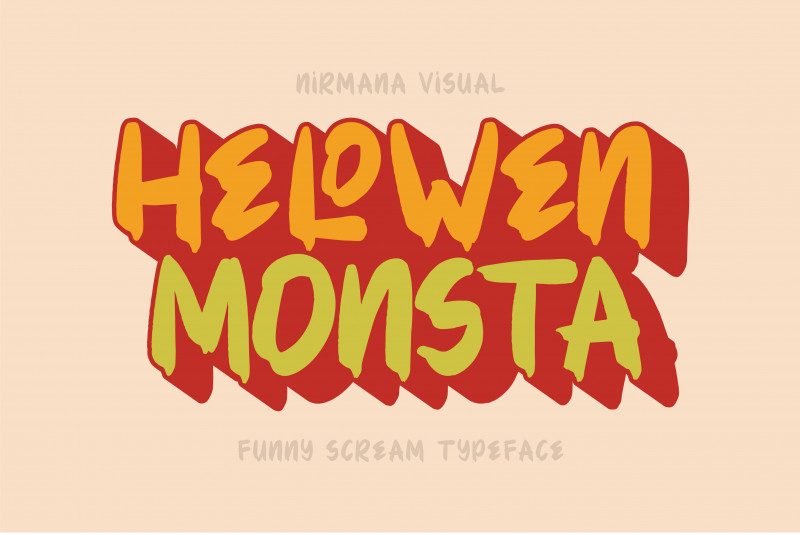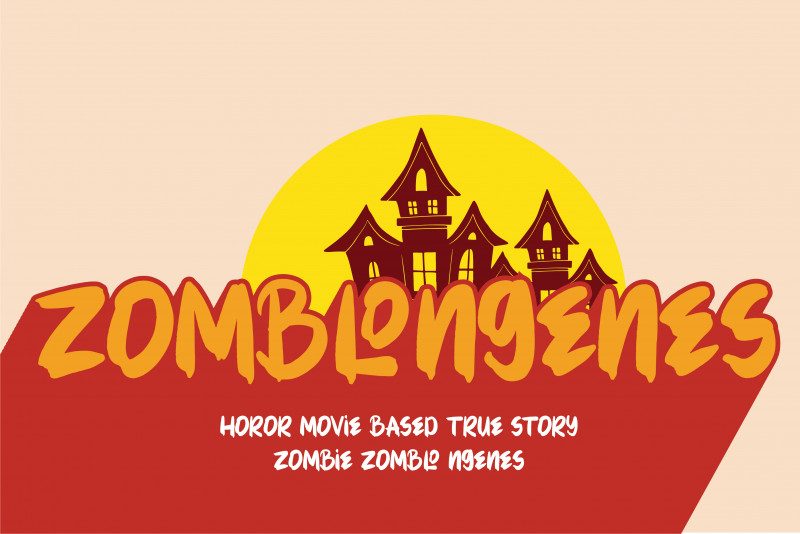
Hellowen Monsta Font with a Kids style, a handmade brush font, designed for creating authentic typographic designs, including product designs, logo design & branding, music covers, social media campaigns and many more.
It\’s smooth, it\’s cute, it\’s fun, and it\’s mighty tasty!
features :
– Uppercase
– Lowercase
– extended Latin characters for language support